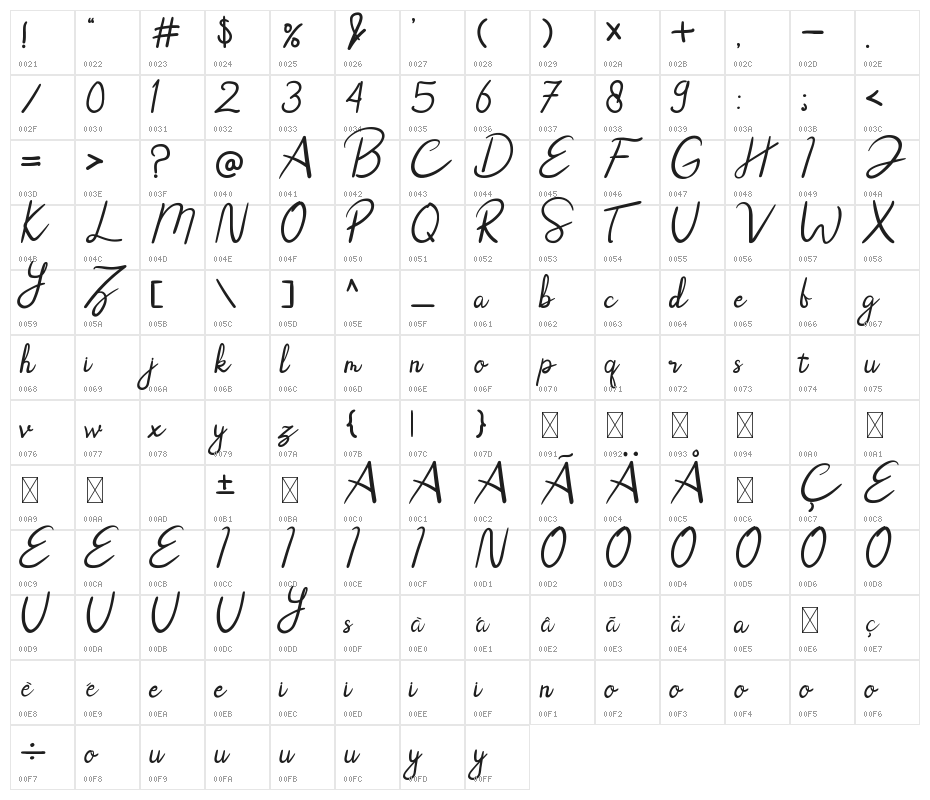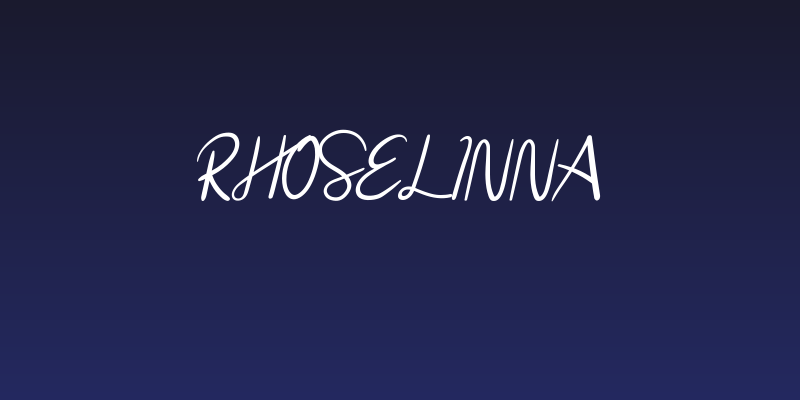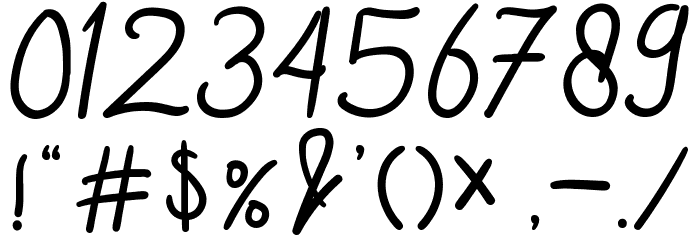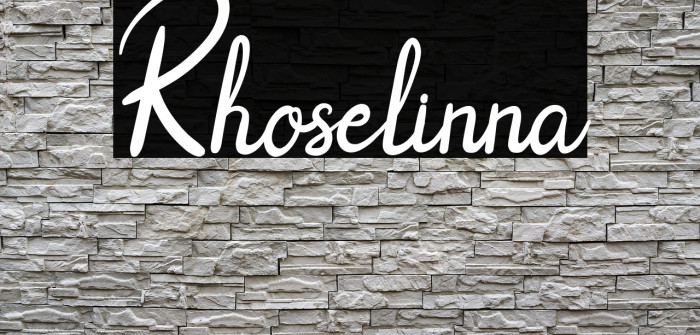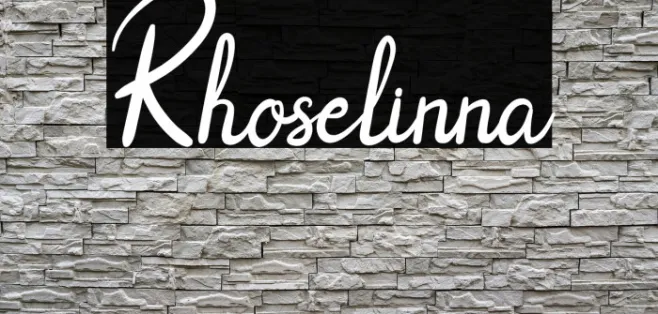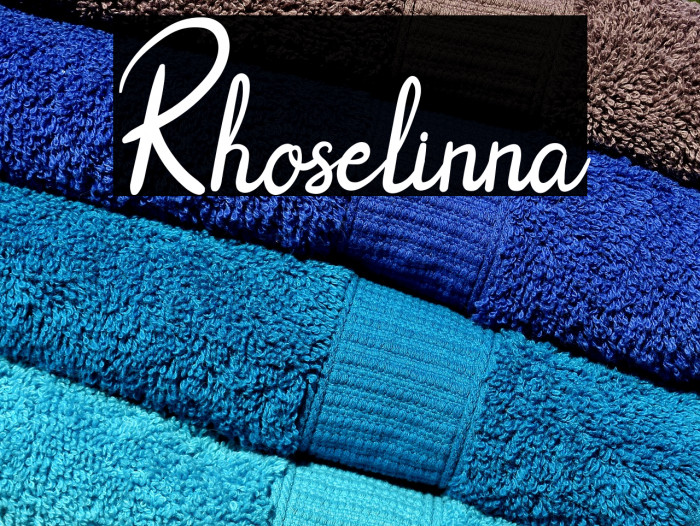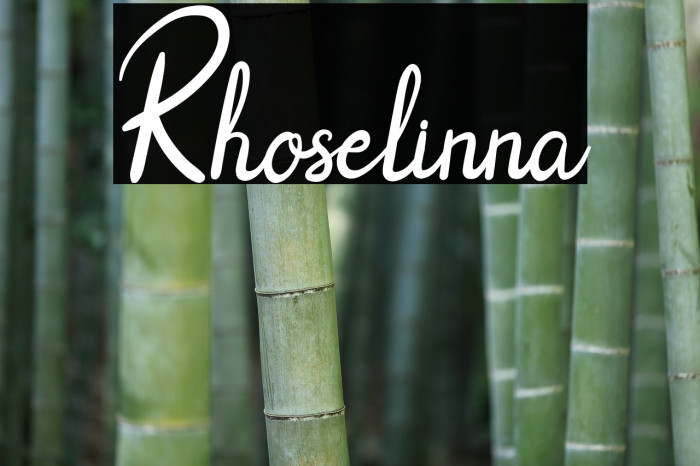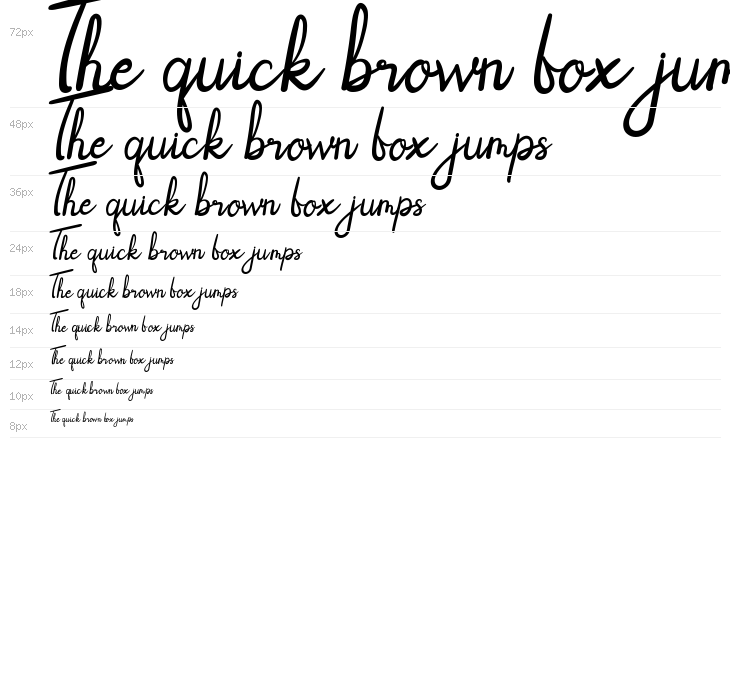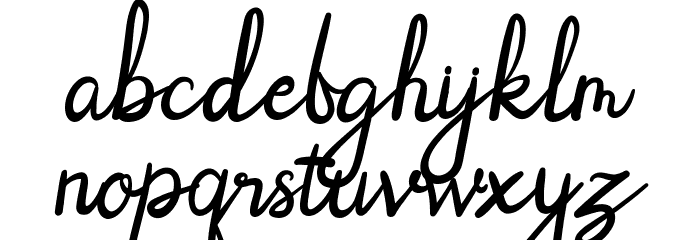
Rhoselinna Font
Rhoselinna Description
This font features a flowing, cursive style that mimics elegant handwriting. The letters are connected, giving it a continuous and fluid appearance. The uppercase characters are slightly more embellished, with sweeping curves and loops that add a touch of sophistication. The lowercase letters maintain a consistent flow, enhancing readability while retaining a stylish flair. Numbers and special characters are designed to complement the overall script style, ensuring a cohesive look across all text elements. This font is perfect for projects that require a personal touch, such as invitations, greeting cards, or branding materials that aim to convey elegance and warmth.
| Use Case | Headlines, Invitations, Branding |
| Proposed Projects | Ideal for wedding invitations, personal branding, greeting cards, and elegant packaging. |